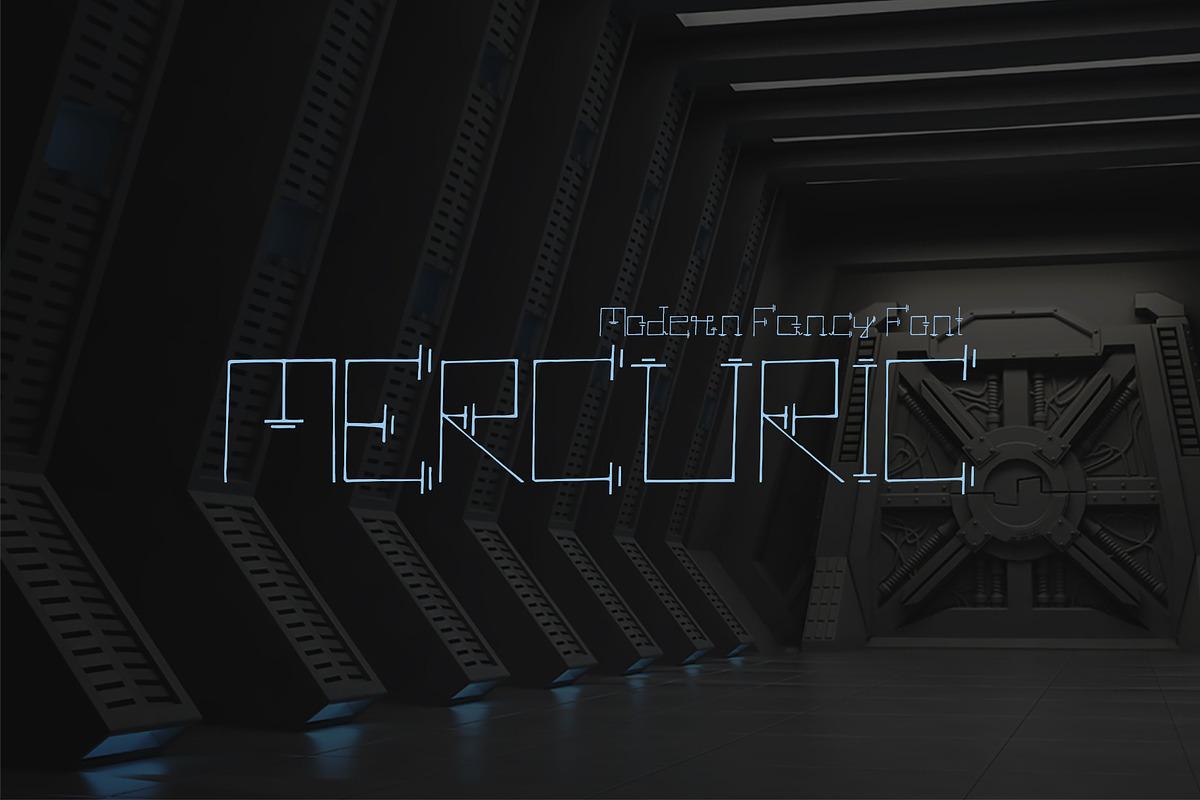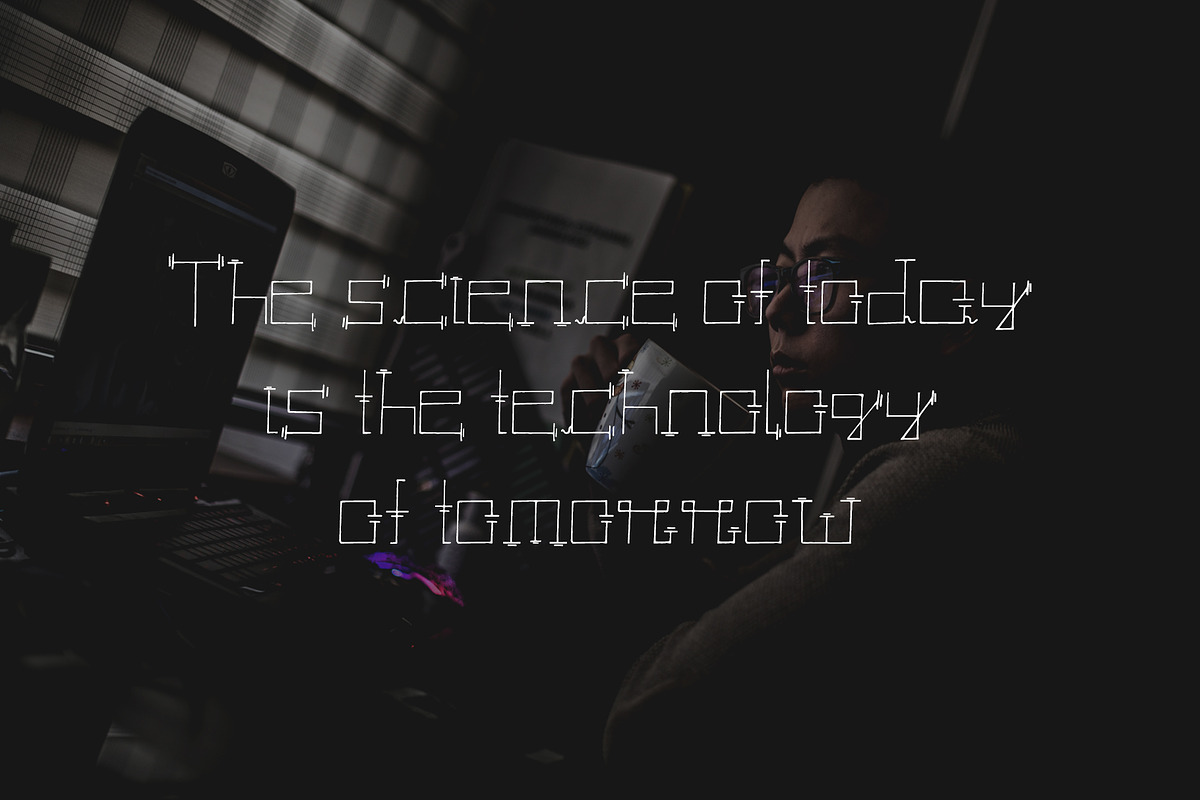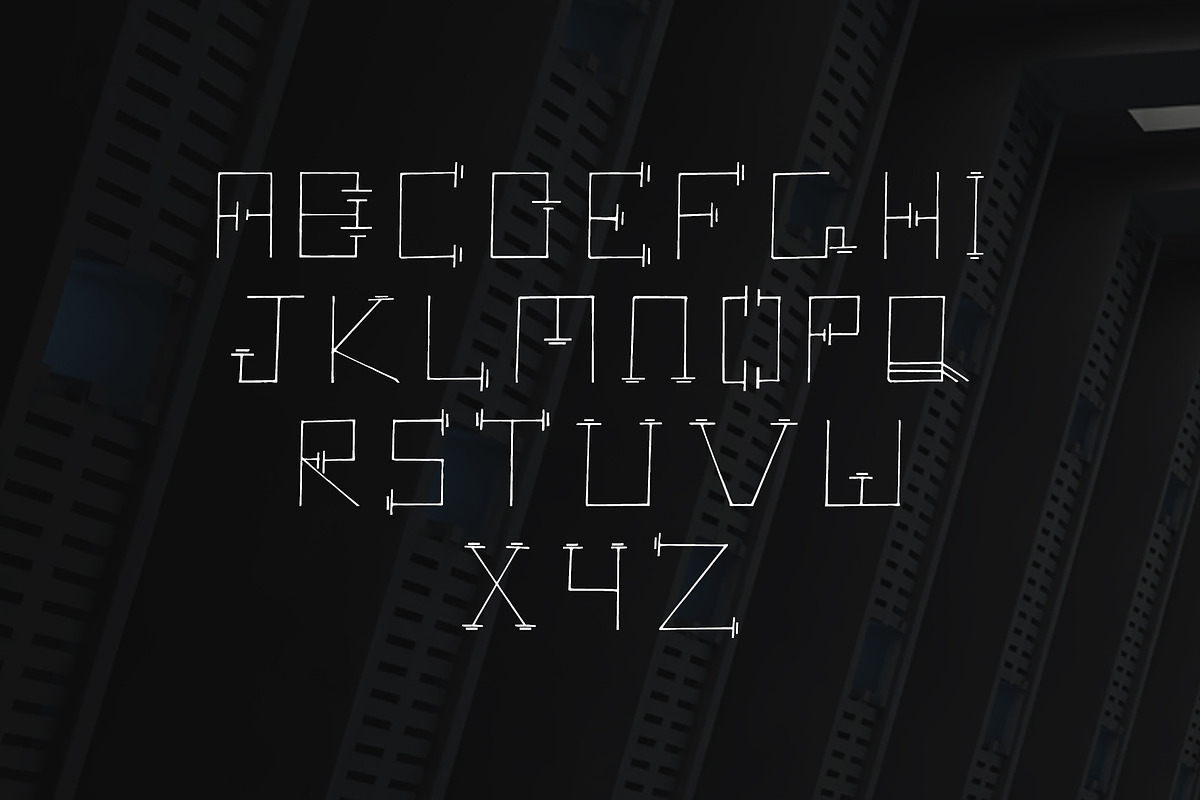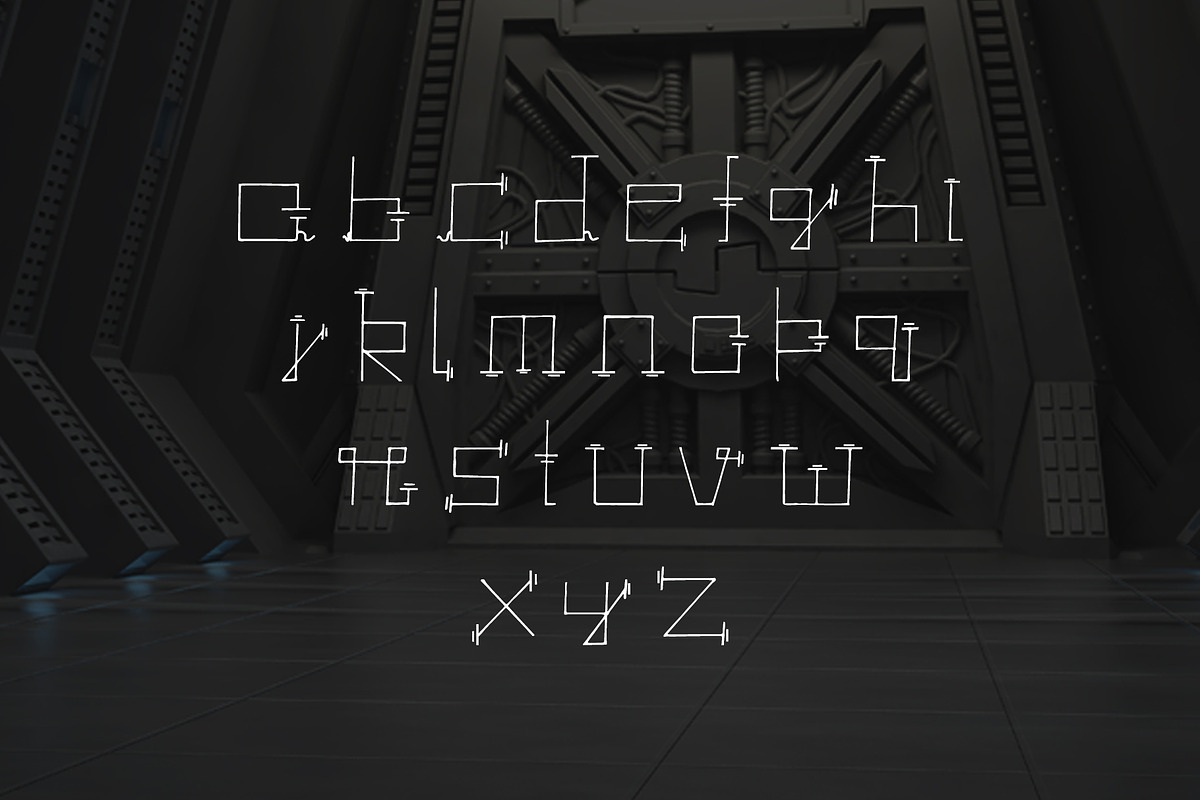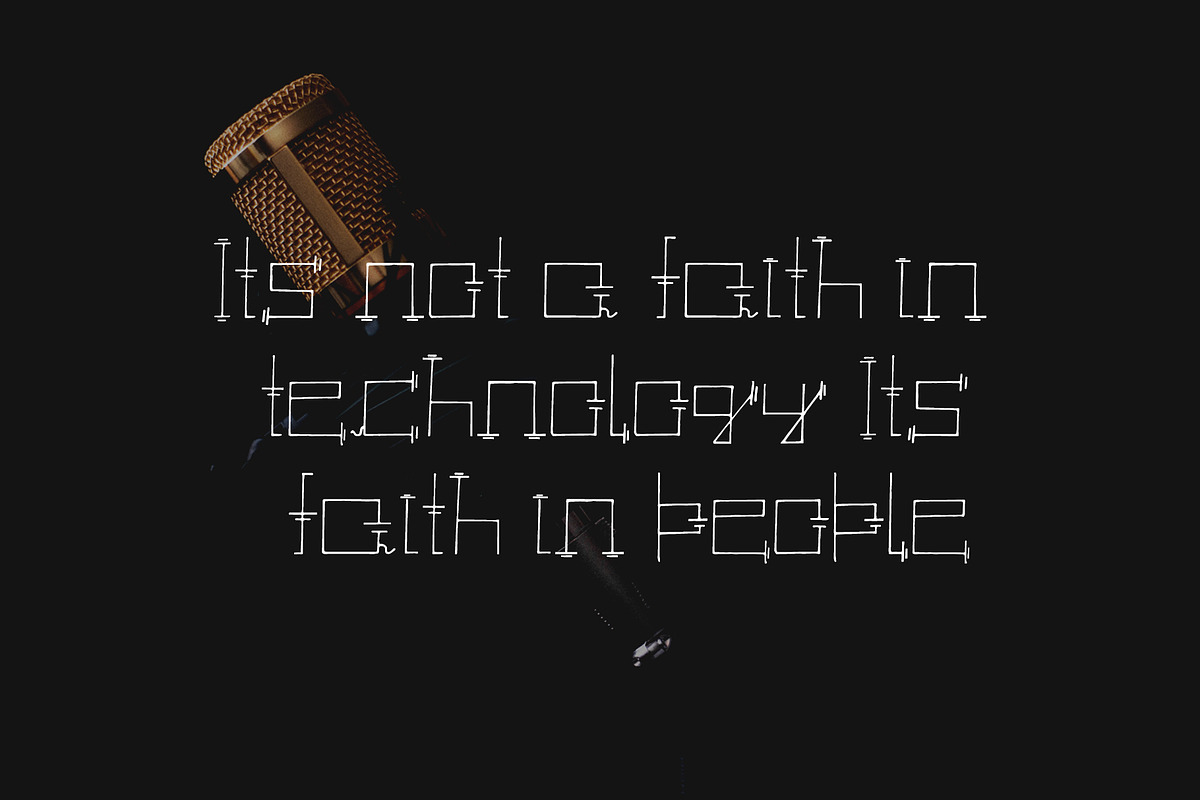
Mercuric Fancy Font
Mercuric Fancy Font by Creativetacos is a font selected for branding, posters, packaging, typography.
- Includes 1 weight The perfect choice for Future, Modern, Fashion & Magazine Titles.
Why Mercuric Fancy Font is worth a look
Mercuric Fancy Font by Creativetacos fits naturally into Branding, posters, packaging, typography.